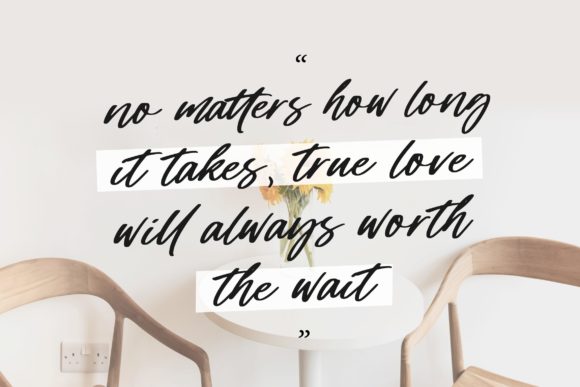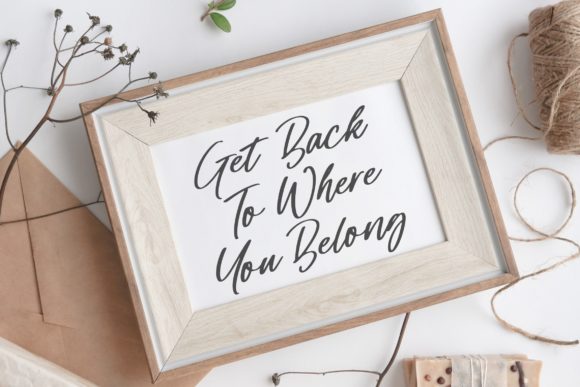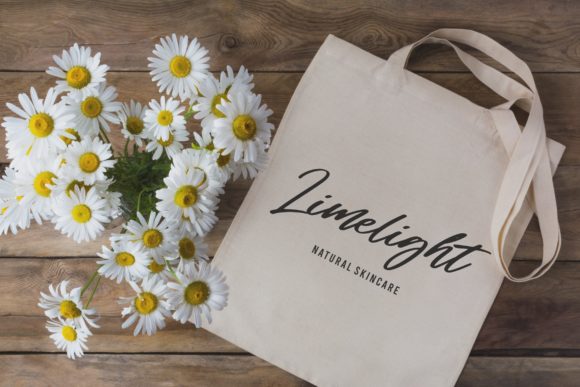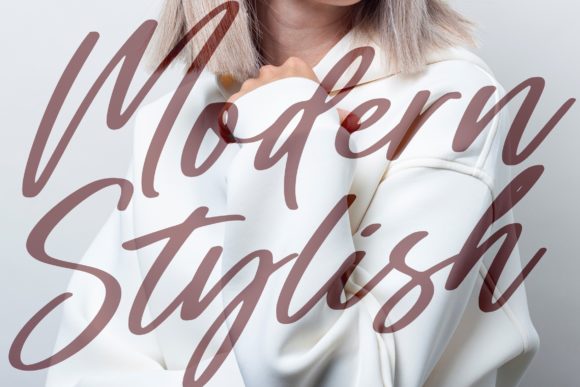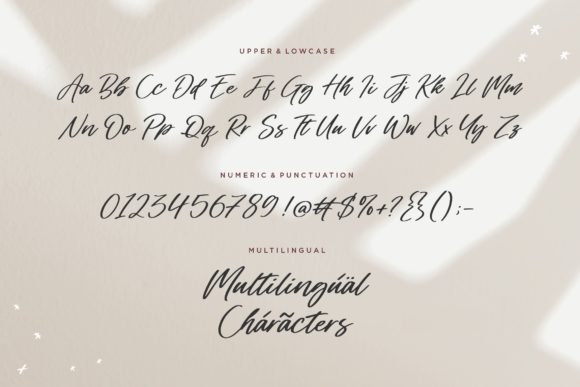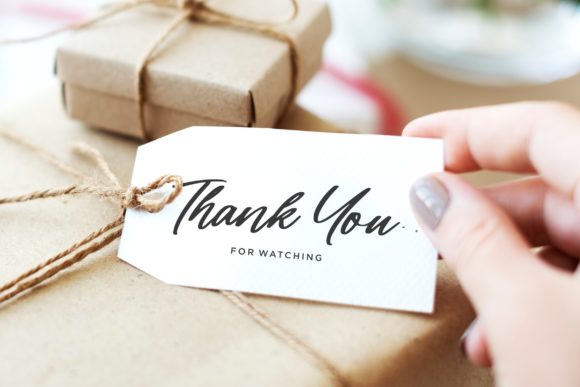
The Perfect Script for a Memorable Design
Have you ever stared at a blank canvas, trying to bring your creative vision to life? As designers, we’ve all been there. It’s that moment of frustration and excitement, when everything clicks into place, and our imagination runs wild. For me, that moment came when I discovered the Bostonbay Font – a beautiful, elegant handwritten font that adds a touch of personality to any design.
The Bostonbay Font is a versatile script font perfect for adding a personal touch to wedding invitations, thank you cards, and other special occasions. Its unique style makes it valuable for designers who want to stand out from the crowd. Whether you’re creating a logo, greeting card, or wedding design, the Bostonbay Font is sure to impress. With its elegant feel and high-quality design, it’s a must-have for any designer looking to elevate their work.
Bostonbay Font Key Features
- Font Style: Script font with a unique, handwritten feel
- Unique Characteristics: Features swashes, ligatures, and contextual alternates to create a highly customizable and expressive font
Bostonbay Font Review
I recently had the chance to work with the Bostonbay font, and I must say it’s a unique and interesting choice. ✨ One thing that stands out is its versatility – it can be used for both modern and traditional designs, making it a great option for a wide range of projects.
Another thing that works well is its legibility. ✨ Even at smaller font sizes, the letters are clear and easy to read, which is a must for any font.
- ⚠️ The font may not be suitable for highly stylized or avant-garde designs, as its classic feel may not fit the bill.
- ⚠️ The font family is relatively small, which may limit its use for extended blocks of text.
Overall, I’d say the Bostonbay font is a solid choice for designers looking for a classic, easy-to-read font. While it may not be the most exciting option, it gets the job done and is a great choice for projects where you want a timeless feel.
Use Boston Bay font to create a classic and elegant look in your designs. Pair it with other serif fonts to add depth and visual interest. Experiment with different font sizes and colors to achieve the desired effect.
Boston Bay font is ideal for:
- Creating headings and titles
- Designing invitations and wedding stationery
- Developing branding materials
- Adding a touch of sophistication to presentations and documents